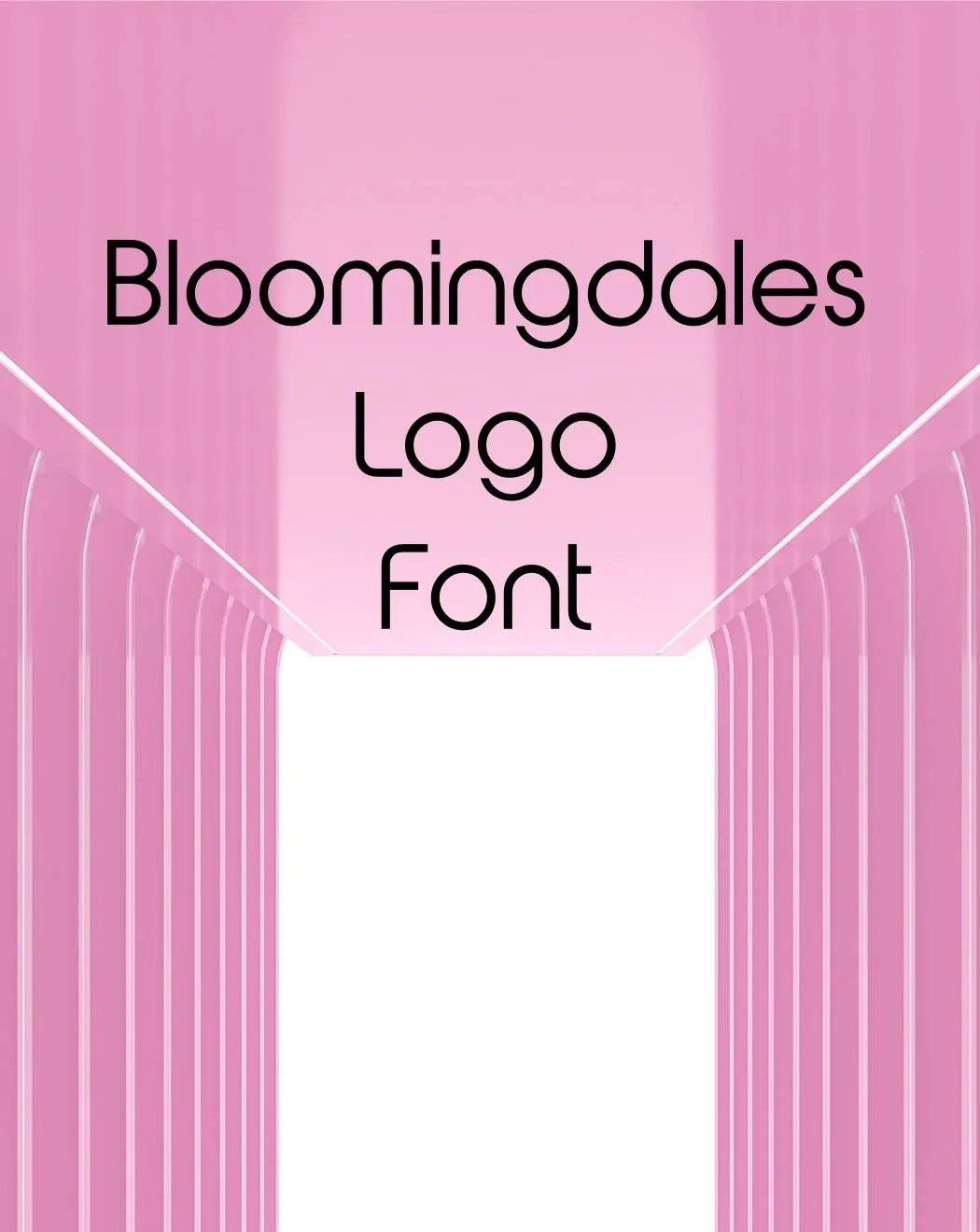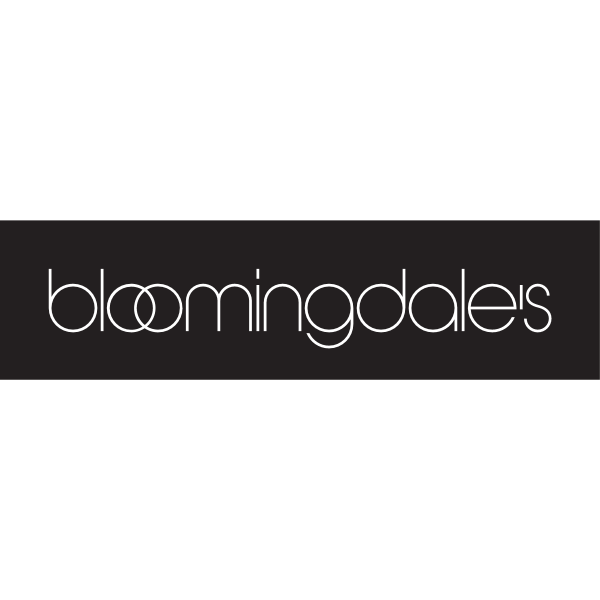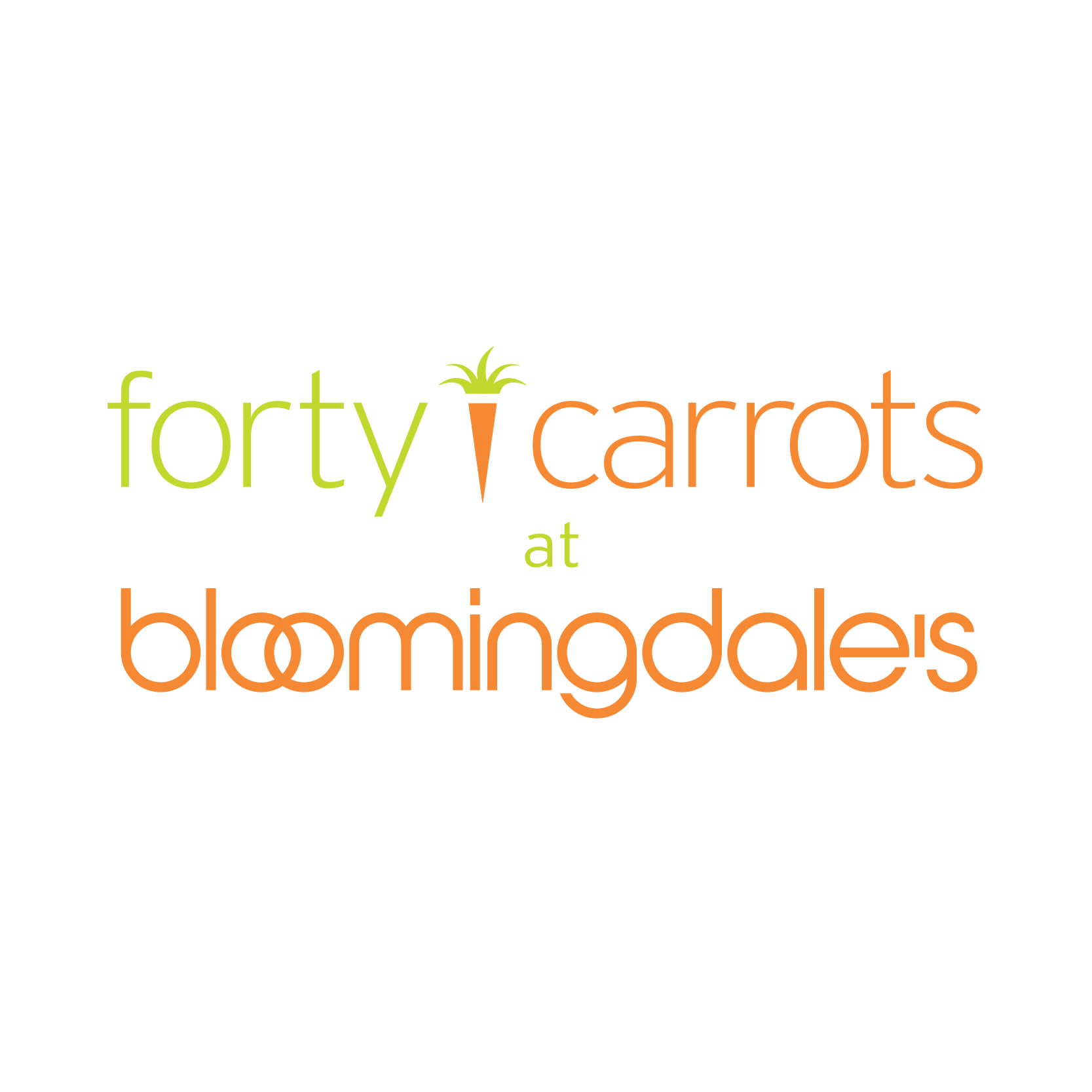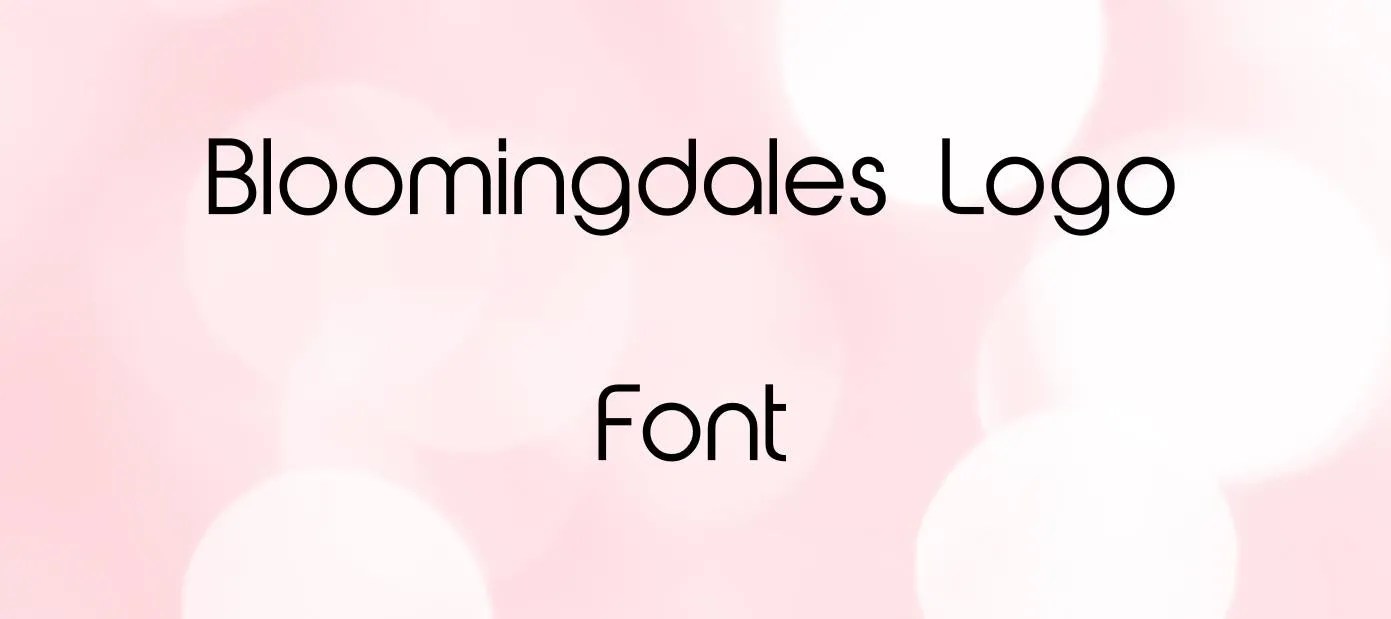
Bloomingdales Logo Font . Trading company bloomingdale’s uses text logos: Their evolution moved evenly, as redesigns were rare: It does not have any graphic characters. Browse by alphabetical listing, by style, by author or by popularity. Browse by alphabetical listing, by style, by author or by popularity. The font used for bloomingdale’s logo is very similar to avant garde gothic extra light, which is a geometric sans serif font designed by herb lubalin & tom carnase and published by itc. 320 × 64 pixels | 640 × 128 pixels |. While this font style was initially only available in a single. The bloomingdales is an american luxury department store chain with a total of 55 stores in america. Archive of freely downloadable fonts. Size of this png preview of this svg file: Archive of freely downloadable fonts. This brand was founded by joseph b.
Bloomingdales Logo Font It does not have any graphic characters. While this font style was initially only available in a single. Archive of freely downloadable fonts. Size of this png preview of this svg file: The font used for bloomingdale’s logo is very similar to avant garde gothic extra light, which is a geometric sans serif font designed by herb lubalin & tom carnase and published by itc. 320 × 64 pixels | 640 × 128 pixels |. Browse by alphabetical listing, by style, by author or by popularity. Browse by alphabetical listing, by style, by author or by popularity. Their evolution moved evenly, as redesigns were rare: Trading company bloomingdale’s uses text logos: Archive of freely downloadable fonts. This brand was founded by joseph b. The bloomingdales is an american luxury department store chain with a total of 55 stores in america.
Bloomingdales Logo Font Free Download Bloomingdales Logo Font It does not have any graphic characters. 320 × 64 pixels | 640 × 128 pixels |. Archive of freely downloadable fonts. The bloomingdales is an american luxury department store chain with a total of 55 stores in america. Trading company bloomingdale’s uses text logos: Browse by alphabetical listing, by style, by author or by popularity. Browse by alphabetical listing,. Bloomingdales Logo Font.
Bloomingdales Logo Font Archive of freely downloadable fonts. The bloomingdales is an american luxury department store chain with a total of 55 stores in america. While this font style was initially only available in a single. The font used for bloomingdale’s logo is very similar to avant garde gothic extra light, which is a geometric sans serif font designed by herb lubalin &. Bloomingdales Logo Font.
Bloomingdales Logo Font Archive of freely downloadable fonts. Browse by alphabetical listing, by style, by author or by popularity. Their evolution moved evenly, as redesigns were rare: This brand was founded by joseph b. While this font style was initially only available in a single. It does not have any graphic characters. Size of this png preview of this svg file: The bloomingdales. Bloomingdales Logo Font.
Close Up of Bloomingdale`s Department Store Logo Editorial Image Bloomingdales Logo Font Browse by alphabetical listing, by style, by author or by popularity. Browse by alphabetical listing, by style, by author or by popularity. Archive of freely downloadable fonts. The bloomingdales is an american luxury department store chain with a total of 55 stores in america. 320 × 64 pixels | 640 × 128 pixels |. While this font style was initially. Bloomingdales Logo Font.
Bloomingdale’s (1972) Packaging, signage, logo, font design for the New Bloomingdales Logo Font Their evolution moved evenly, as redesigns were rare: Trading company bloomingdale’s uses text logos: Browse by alphabetical listing, by style, by author or by popularity. The font used for bloomingdale’s logo is very similar to avant garde gothic extra light, which is a geometric sans serif font designed by herb lubalin & tom carnase and published by itc. 320 ×. Bloomingdales Logo Font.
Bloomingdales Logo Font Free Download Bloomingdales Logo Font Browse by alphabetical listing, by style, by author or by popularity. Archive of freely downloadable fonts. Trading company bloomingdale’s uses text logos: The font used for bloomingdale’s logo is very similar to avant garde gothic extra light, which is a geometric sans serif font designed by herb lubalin & tom carnase and published by itc. It does not have any. Bloomingdales Logo Font.
Bloomingdales Logos Bloomingdales Logo Font While this font style was initially only available in a single. The font used for bloomingdale’s logo is very similar to avant garde gothic extra light, which is a geometric sans serif font designed by herb lubalin & tom carnase and published by itc. Browse by alphabetical listing, by style, by author or by popularity. It does not have any. Bloomingdales Logo Font.
Bloomingdales Logo Font Their evolution moved evenly, as redesigns were rare: Archive of freely downloadable fonts. While this font style was initially only available in a single. It does not have any graphic characters. Archive of freely downloadable fonts. Browse by alphabetical listing, by style, by author or by popularity. Browse by alphabetical listing, by style, by author or by popularity. 320 ×. Bloomingdales Logo Font.
Bloomingdale's logo and symbol, meaning, history, PNG Bloomingdales Logo Font The bloomingdales is an american luxury department store chain with a total of 55 stores in america. Browse by alphabetical listing, by style, by author or by popularity. Browse by alphabetical listing, by style, by author or by popularity. The font used for bloomingdale’s logo is very similar to avant garde gothic extra light, which is a geometric sans serif. Bloomingdales Logo Font.